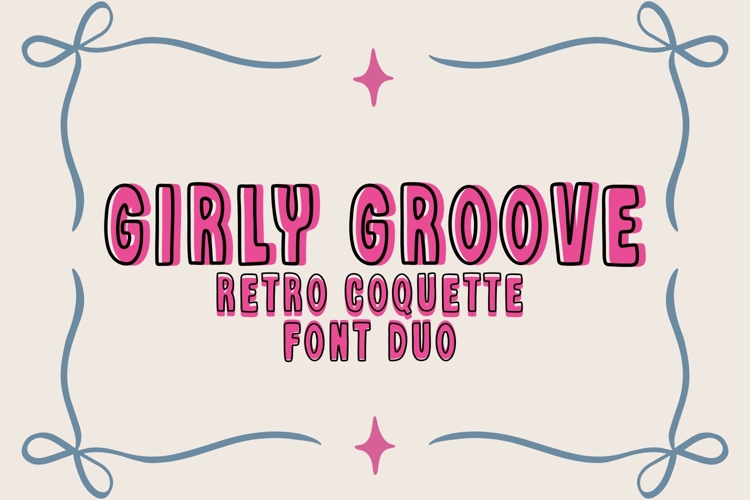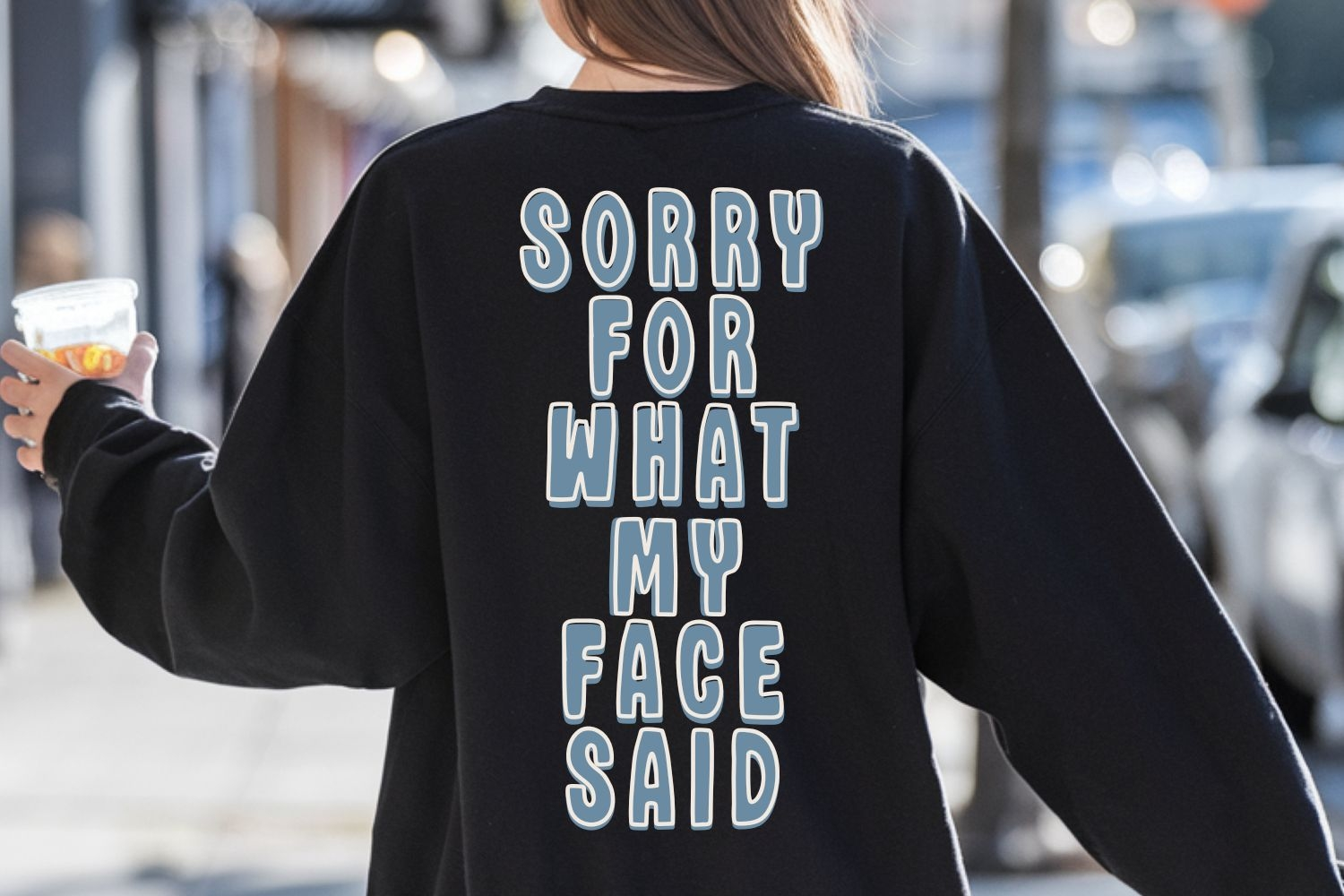
Meet Girly Groove – a playful handlettered font duo that brings the perfect mix of retro groove and girly charm. This set includes both a bold chunky style and a fun outlined style that pair seamlessly together.
With Girly Groove, your designs will pop with personality — whether you’re creating bold retro vibes or adding a sweet girly touch.